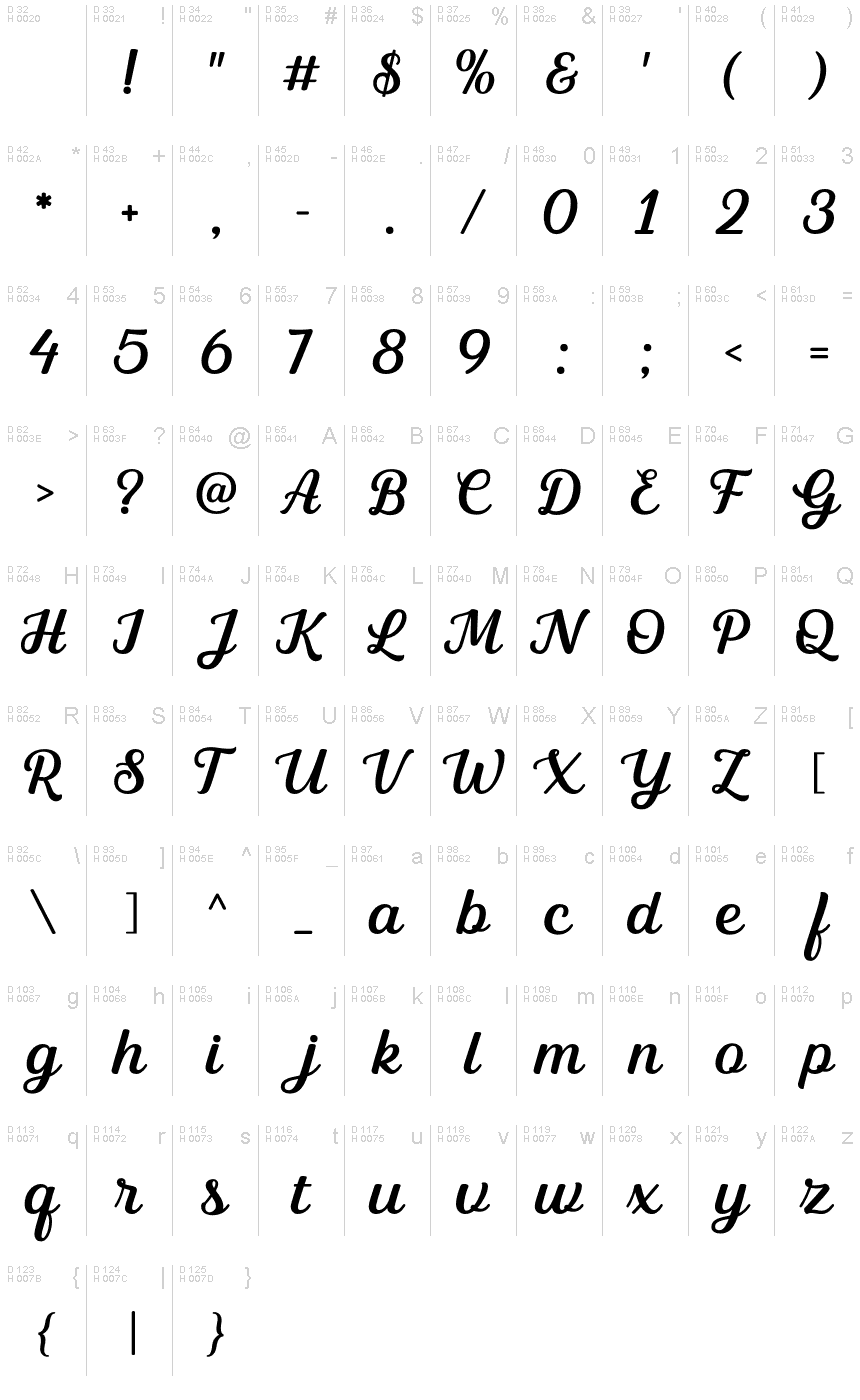
Stay Lovely
Stay Lovely is a beautiful handwritten font designed by Letterflow, perfect for adding a touch of elegance and charm to your projects. With its delicate curves and graceful strokes, this semi-bold font style is ideal for creating wedding invitations, love letters, and other romantic designs. The font's narrow width makes it perfect for use in headlines or titles, while its softer edges make it easy on the eyes when used in longer blocks of text. Whether you're creating a whimsical branding package or designing a feminine blog post, Stay Lovely is the perfect choice to add that extra dose of loveliness to your work.